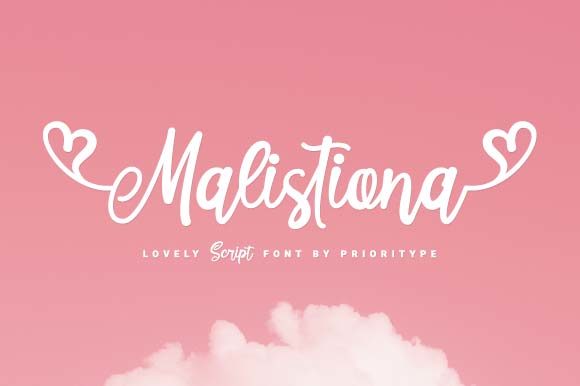
Unleash the magic of Malistiona, a captivating handwritten font that will ignite your Valentine's Day creations with its delicate charm and romantic vibes.
Picture this: a love letter penned in Malistiona's enchanting script, its graceful curves whispering sweet nothings into the heart of your beloved. Or imagine a heartfelt Valentine's card, adorned with Malistiona's elegant flourishes, expressing your affection in a way that's both timeless and utterly romantic.
With Malistiona, you'll have an arsenal of captivating characters at your fingertips, each one meticulously crafted to evoke feelings of love and adoration. Its well-rounded letters dance across the page, creating a visual symphony that will leave your audience spellbound.
But Malistiona's allure extends far beyond Valentine's Day. Its incredibly versatile style makes it a perfect choice for any project that calls for a touch of elegance and sophistication. Design wedding invitations that exude romance, create enchanting logos that leave a lasting impression, or craft social media posts that radiate charm and grace.
Malistiona is more than just a font; it's an invitation to express your creativity and spread love through the power of words. Embrace its enchanting spirit and let your designs blossom into masterpieces that capture hearts and ignite imaginations.
Fall head over heels for Malistiona today and discover the transformative power of a font that embodies the essence of love and romance.